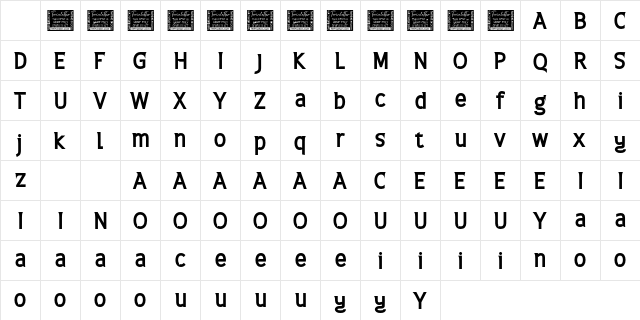
Complete Restrict Personal Use glyph index. Displaying only characters natively supported by Restrict Personal Use font.
Restrict is a composed and adaptable typeface that performs quietly and consistently across a wide range of design contexts.